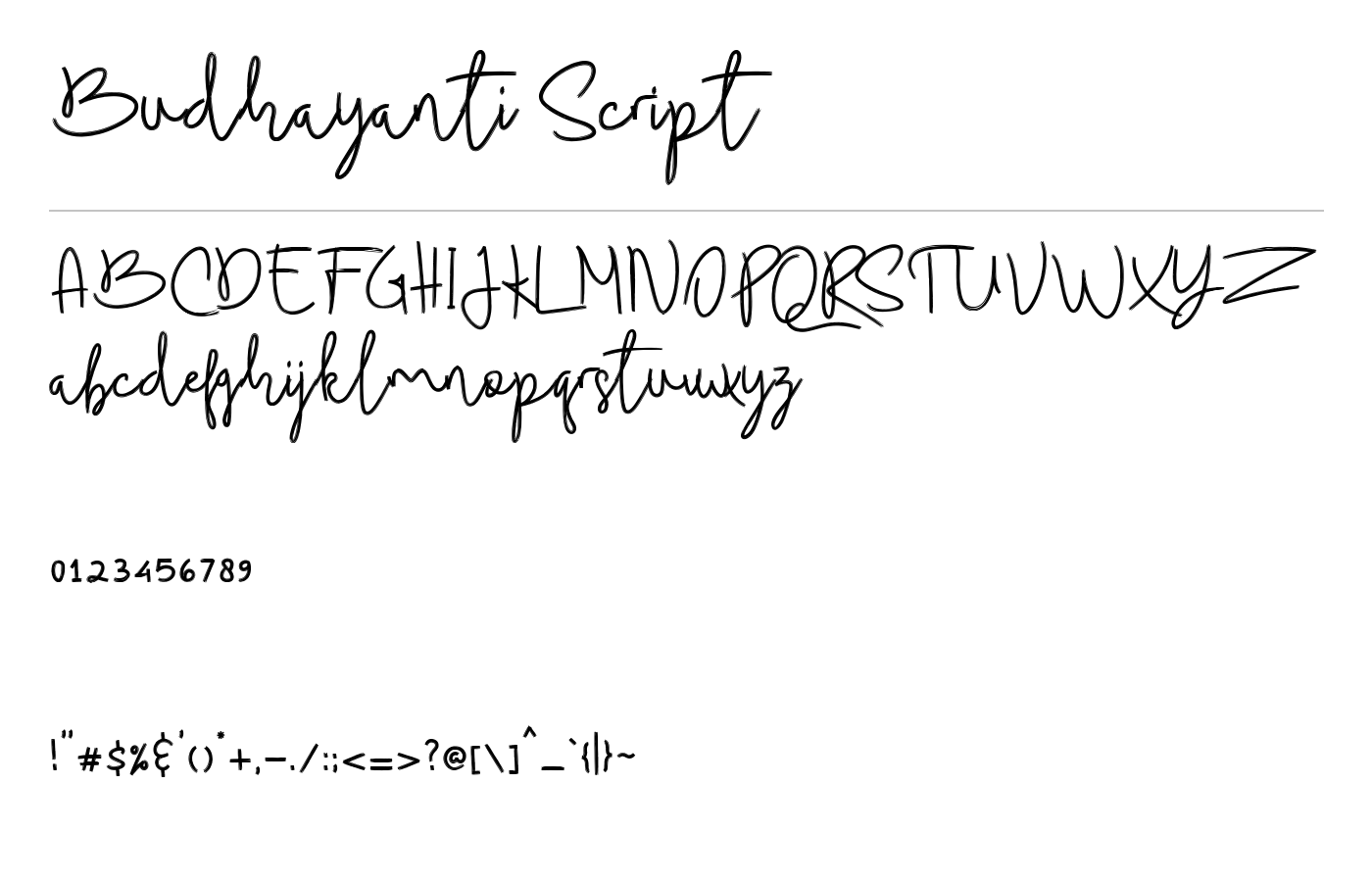
Budhayanti Script is a casual, hand-drawn script font with a playful, organic feel created through its irregular, flowing strokes and varying letter heights. Its thin, slightly textured lines and distinctive letterforms give it a charming, approachable personality, making it perfect for personal branding, invitations, or creative projects that want a friendly, informal touch. This font works best in headlines or short text where its whimsical style can shine without losing readability.
Budhayanti Script Font
About Budhayanti Script Font